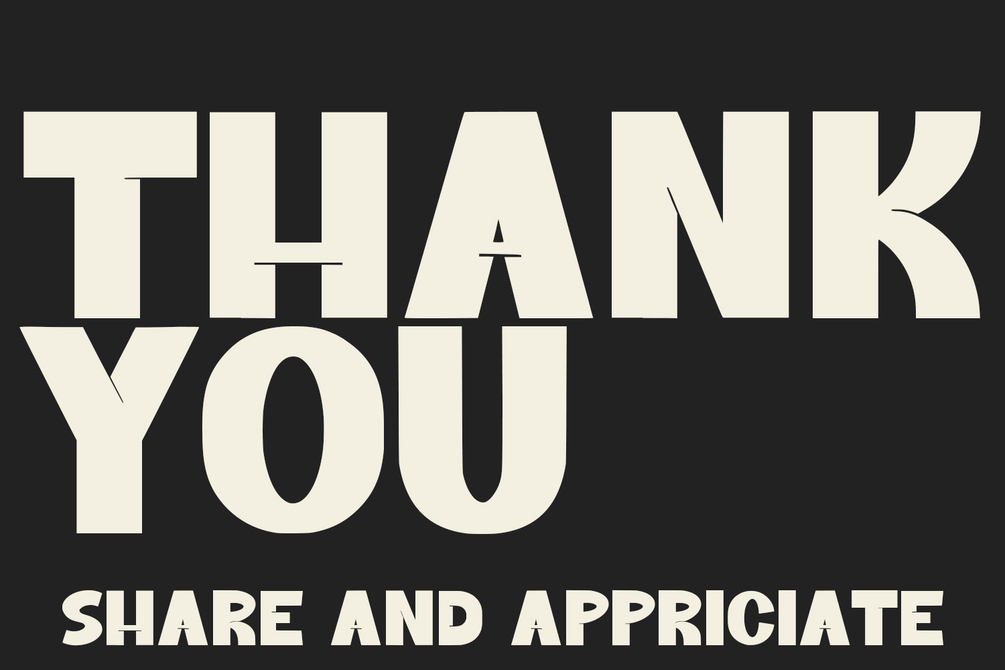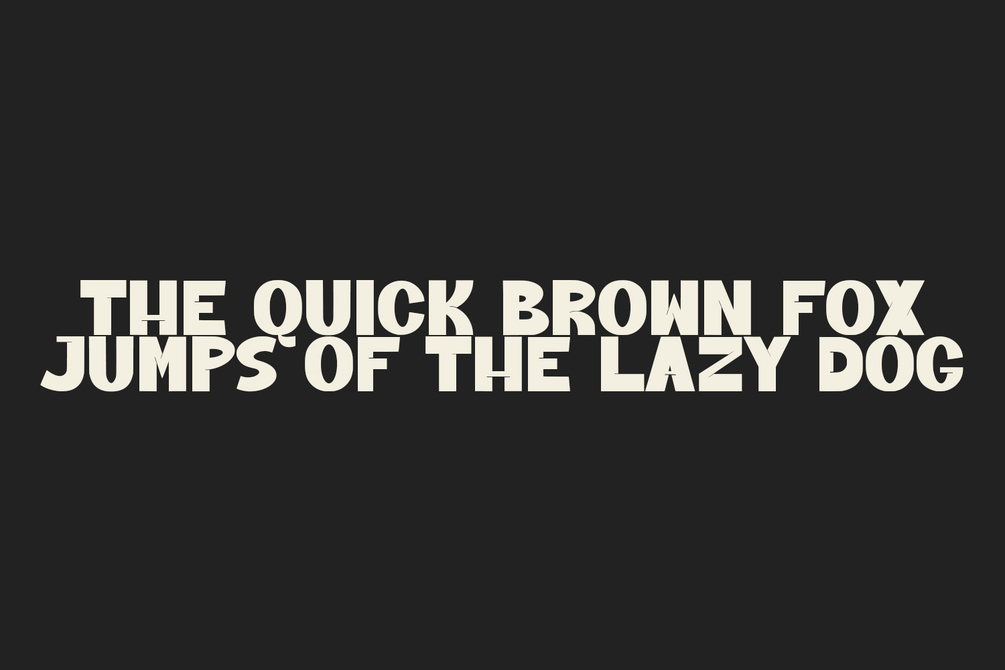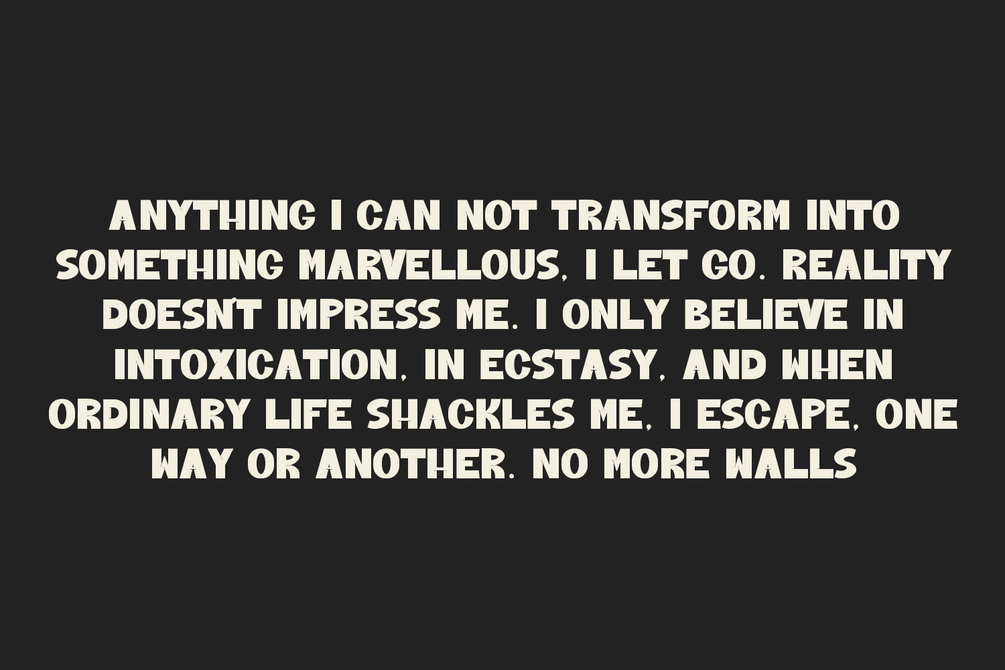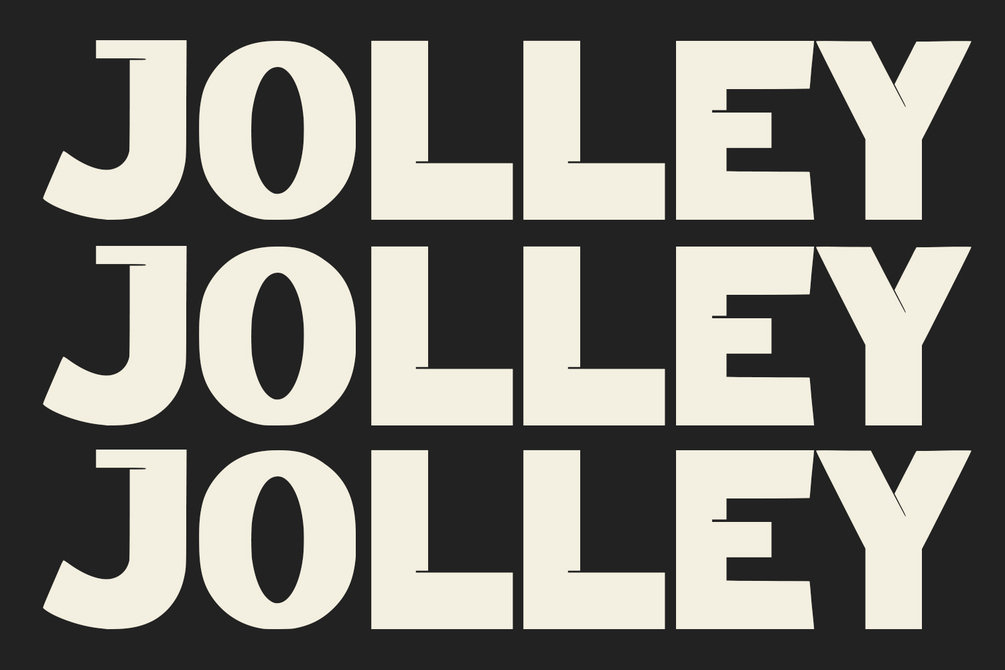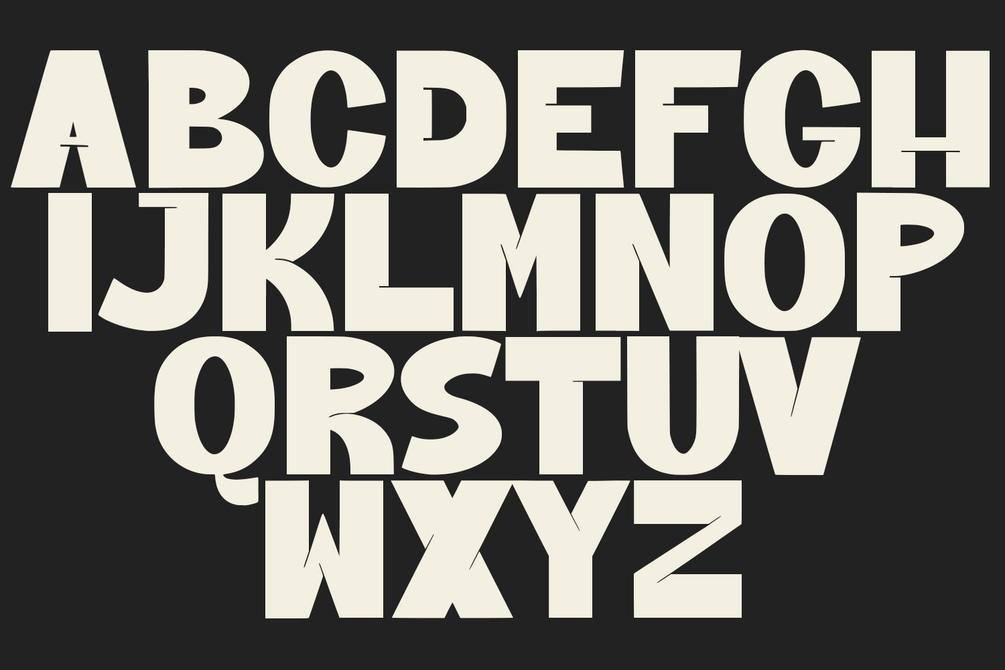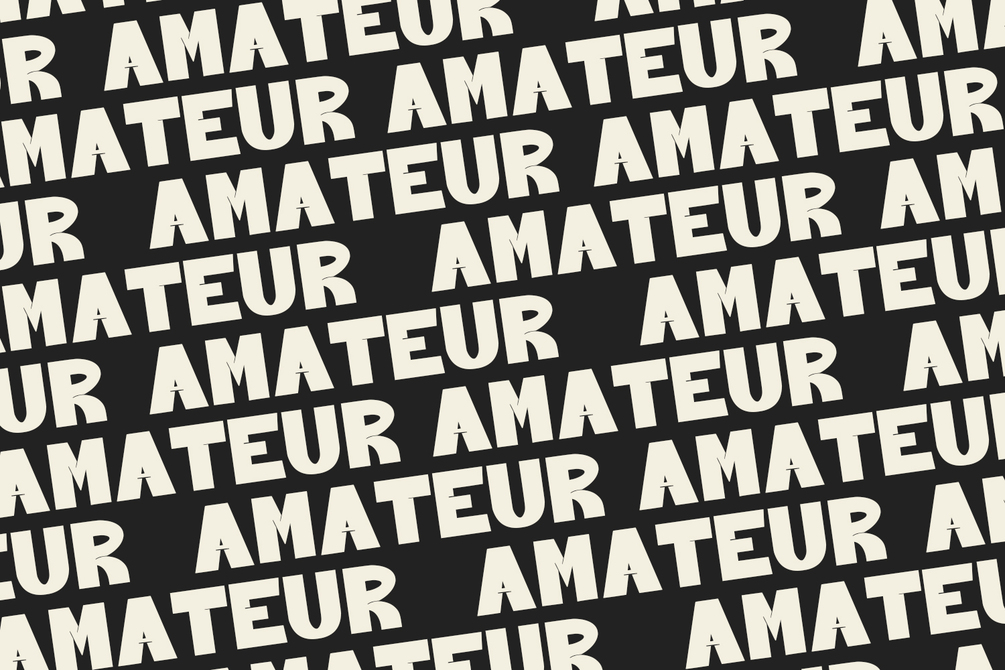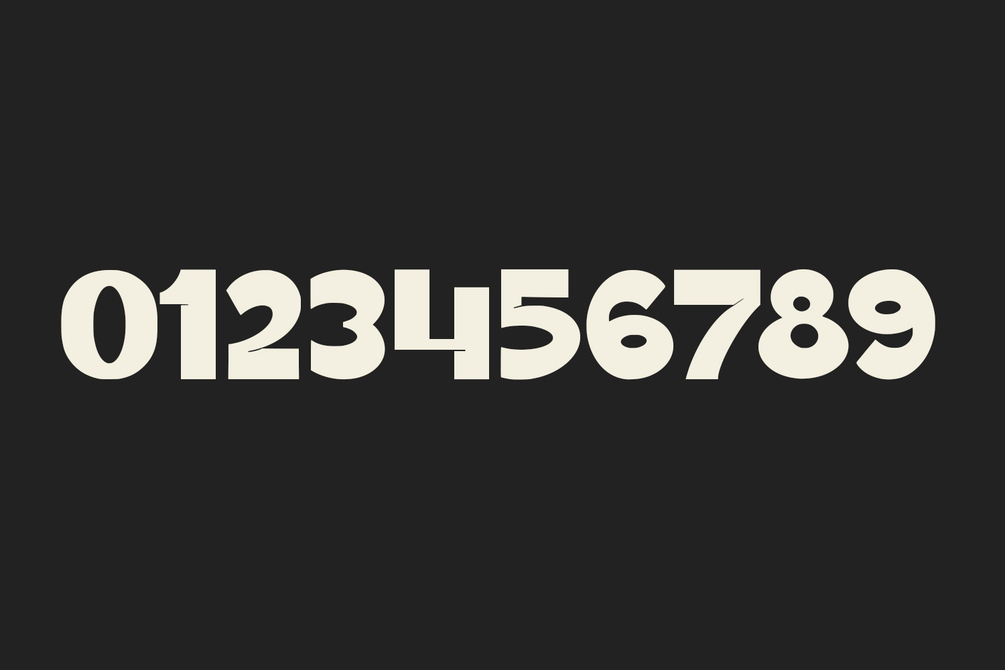
Jolley - Display Font
Jolley - Display Font is a versatile, bold and unique sans serif font. Combination between high contrast and Comic style, Jolley has a unique style with stylistic, alternates, ligatures and supports multilingual languages.